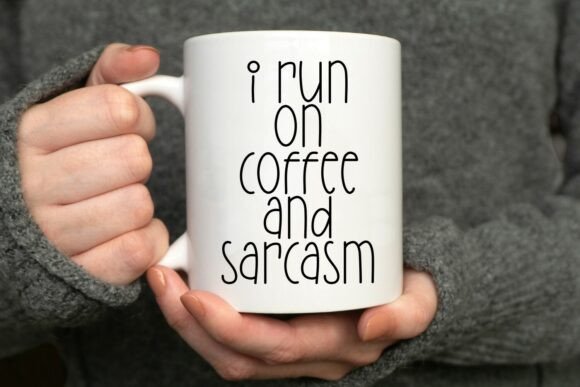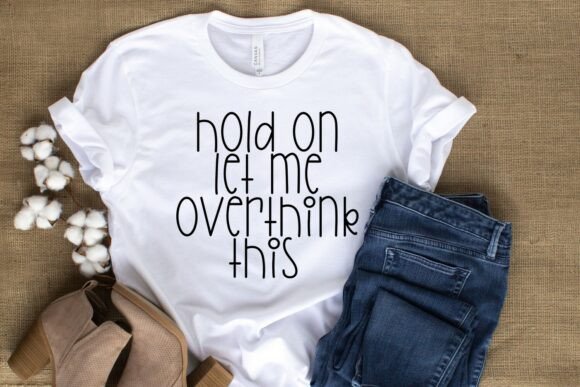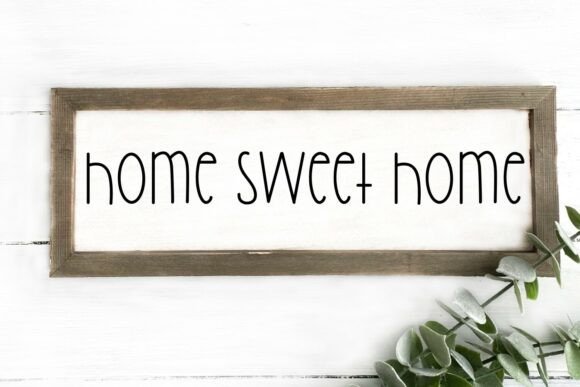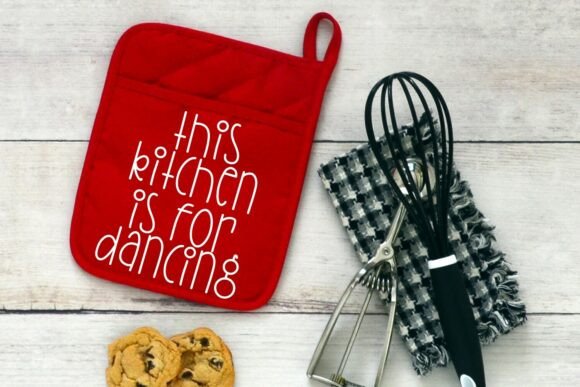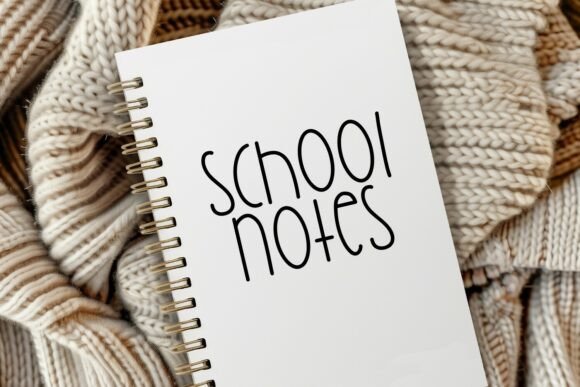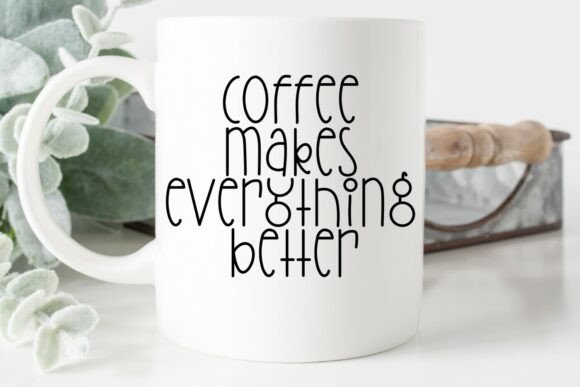
Introduction to Clcaramelmacchiato Font
Caramel Macchiato typeface is a quirky handwritten display font that radiates warmth, playfulness, and charm through its tall, narrow letterforms and whimsical strokes.
Each character carries a hand-drawn, imperfectly perfect quality, making it feel personal and inviting, like a note scribbled with joy Its rounded curves, subtle irregularities, and expressive forms add to its approachable personality, giving it a distinctive handmade aesthetic that balances elegance with a touch of fun.
Key Features of Clcaramelmacchiato Font